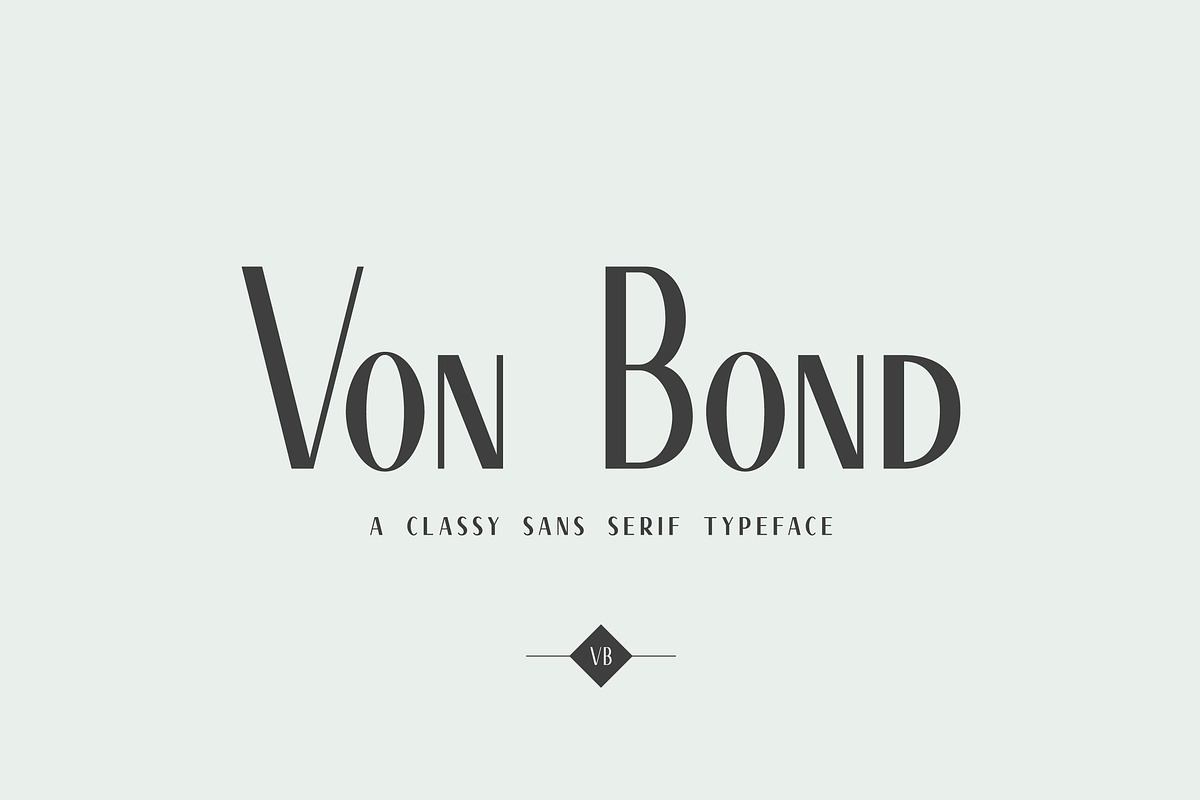
The Von Bond - A Classy Sans Serif Font Free Download is a sleek and sophisticated typeface designed to bring modern elegance to your designs. Featuring clean, minimalist letterforms and a refined structure, this font is perfect for creating upscale logos, branding, editorial designs, websites, and more. Whether you're working on a luxury brand, corporate project, or contemporary creative work, Von Bond adds a stylish, polished touch to your designs.
Von Bond - A Classy Sans Serif Font Free Download is ideal for designers looking to create sleek, professional typography with a modern twist. Perfect for high-end branding, advertising, and creative content, this font will enhance your designs with its clean and sophisticated look. Download it today and bring a touch of class to your creative projects with Von Bond!